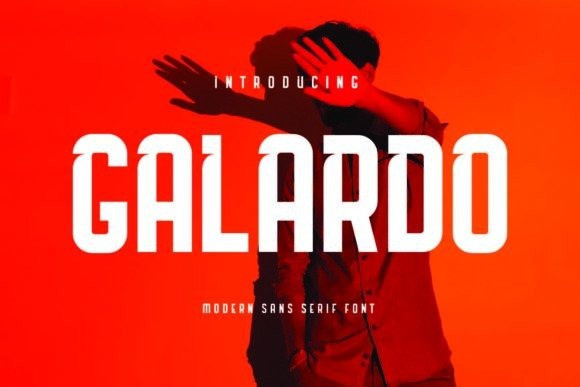
Galardo Font
Galardo Font inspired by the famous minimalist logo perfect for the purposes of designing templates, brochures, videos, advertising branding, logos, invitation, layout design, elegant crafting, beauty design and other.